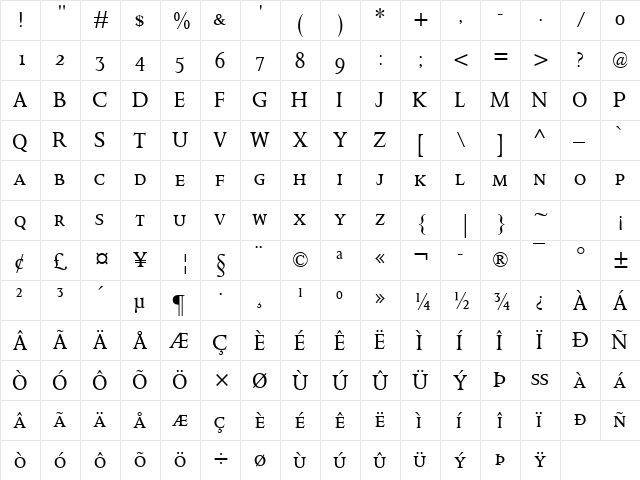
OctavianMT SC Regular
| Foundry | Agfa Monotype Corporation |
Design Context for OctavianMT SC Typeface
OctavianMT SC is a composed and adaptable typeface that performs quietly and consistently across a wide range of design contexts.